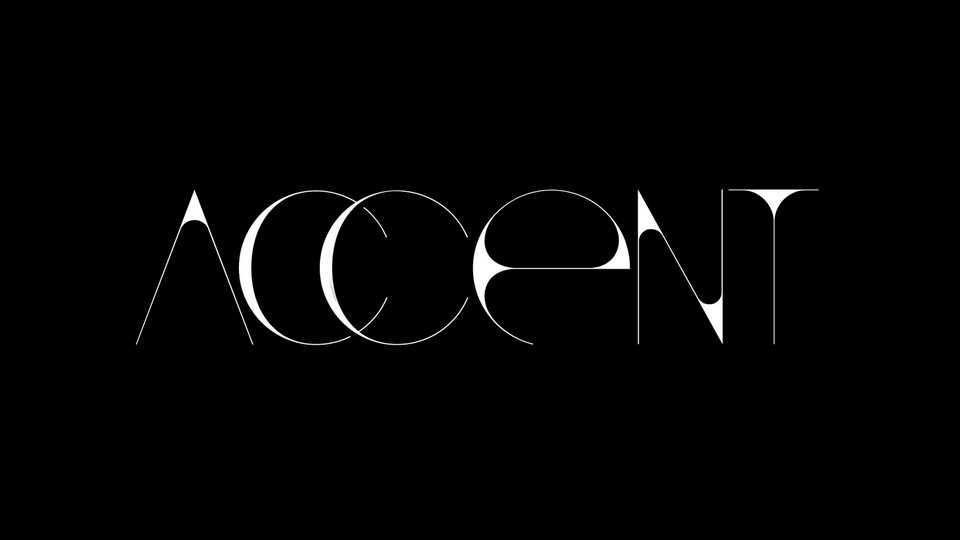
Download Accent font – an experimental all caps dispaly typeface with unique and stylish look. It is designed for small words and short titles, but also great for branding and merchandise, social media, posters and other artworks.
Designer: Nelson Balaban